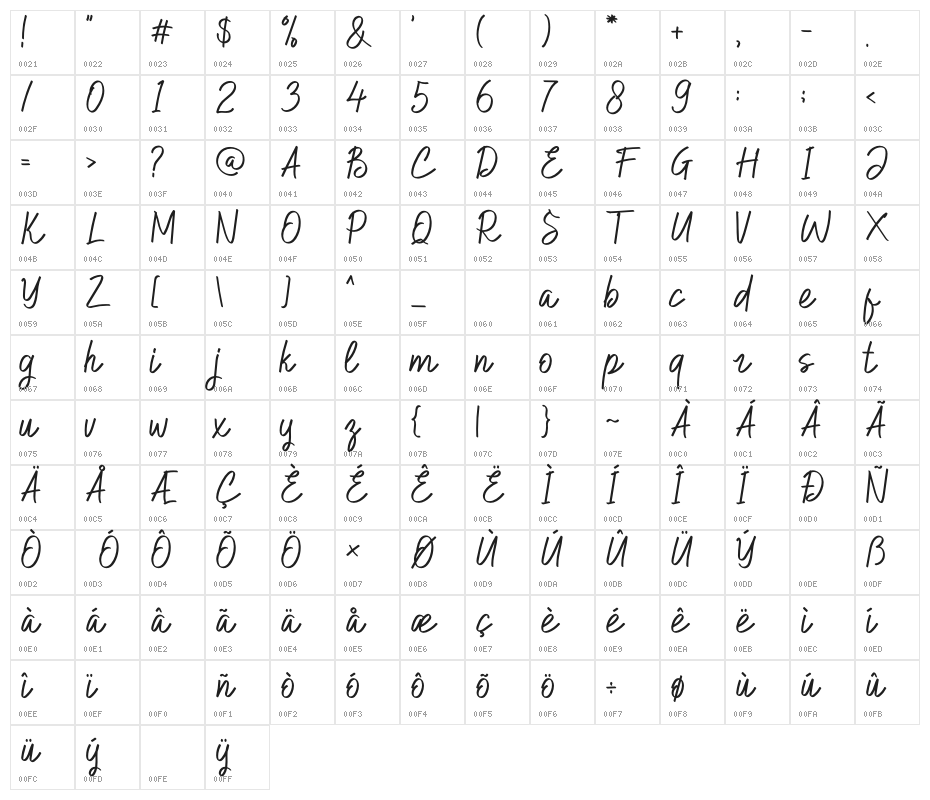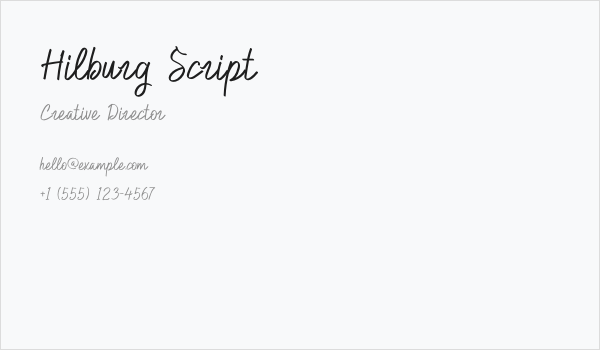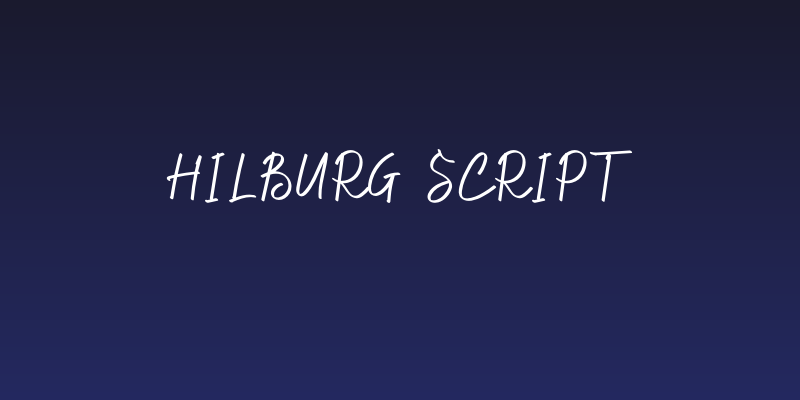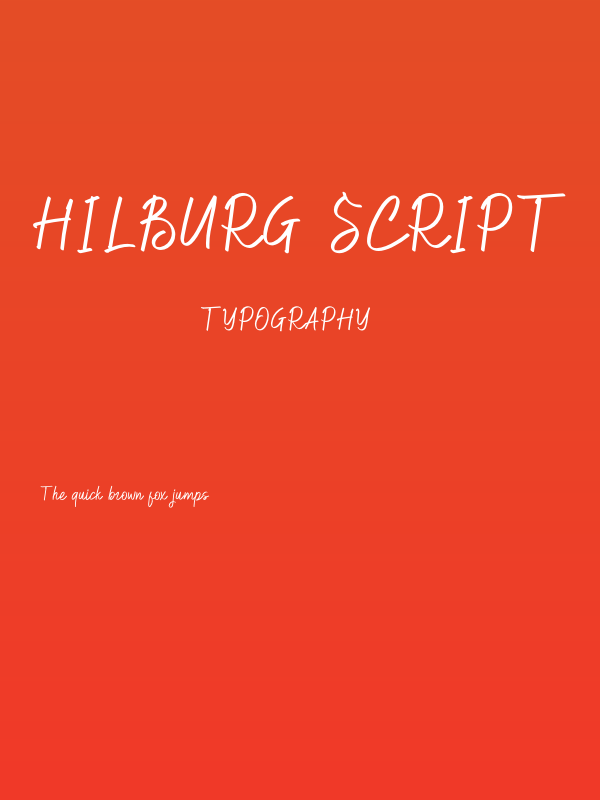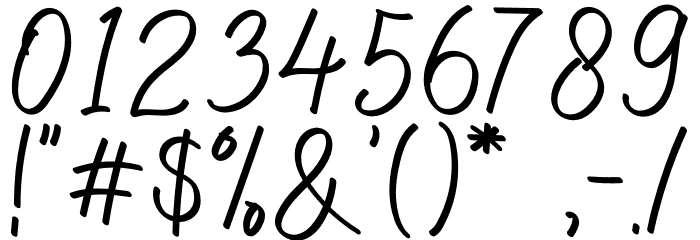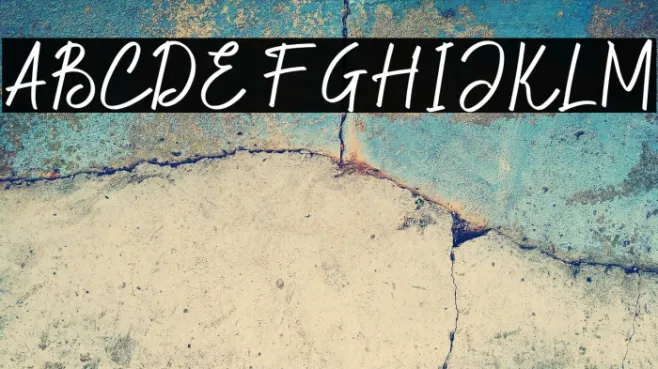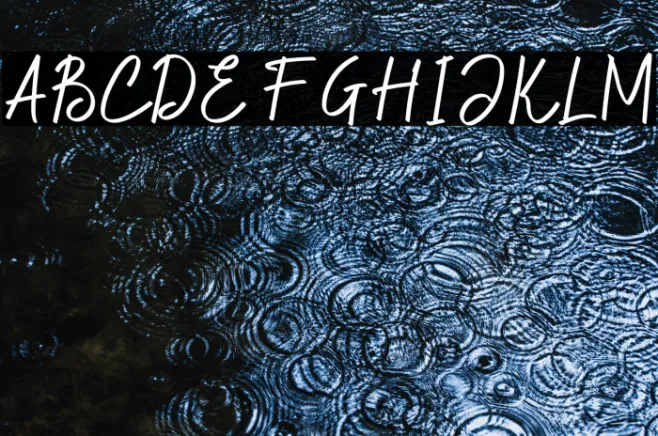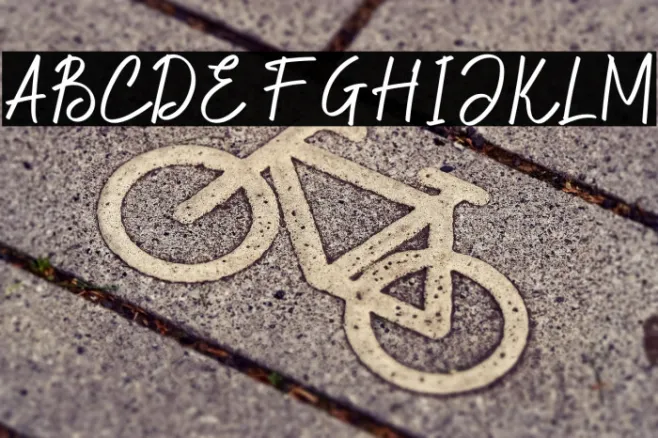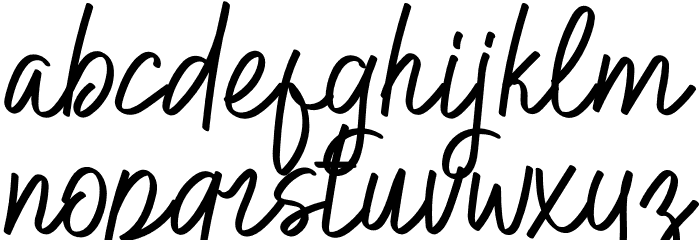
Hilburg Script Font
Hilburg Script Description
This script font exudes a casual and handwritten feel, characterized by its fluid and connected letterforms. The uppercase letters maintain a consistent height with slight variations in stroke thickness, while the lowercase letters are more expressive with loops and curves that add a playful touch. The numerals are clear and legible, matching the overall style of the alphabet. Special characters are well-integrated, maintaining the font's cohesive appearance. The font's design is versatile, suitable for projects that require a personal and approachable aesthetic.
| Proposed Projects | Ideal for greeting cards, invitations, personal branding, and social media graphics. |